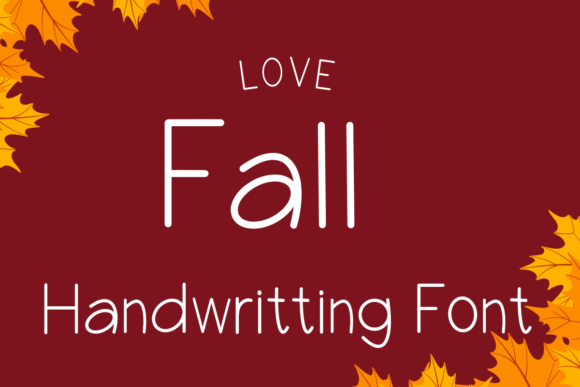
Immerse yourself in a world of charm and elegance with the Love Fall Font, a masterfully crafted script font that captures the essence of playful sophistication. This enchanting font exudes a warm, inviting personality that adds a touch of charm to any design.
Indulge in the artistic flair of Love Fall Font, a captivating script font that evokes feelings of joy and happiness. Its smooth, flowing lines dance across the page, creating a visually stunning masterpiece. With its playful charm, this font transforms ordinary words into an extraordinary work of art.
Step into a world of endless creative possibilities with Love Fall Font. Its versatility knows no bounds, making it the perfect choice for a wide range of projects. From fashion blogs and wedding invitations to digital designs and social media posts, this font adds a touch of magic to every creation.
Unleash your creativity and let your imagination soar with Love Fall Font. Its sweet and friendly demeanor makes it ideal for adding a personal touch to your designs. Whether you're creating custom cards, designing logos, or producing eye-catching marketing materials, this font is sure to leave a lasting impression.
Love Fall Font isn't just a font; it's an experience. Its ability to capture the essence of joy and happiness makes it the perfect choice for those seeking to add a touch of magic to their designs.
Join the creative revolution and embrace the beauty of Love Fall Font today. Discover the joy of crafting designs that resonate with your audience and create a lasting impact.